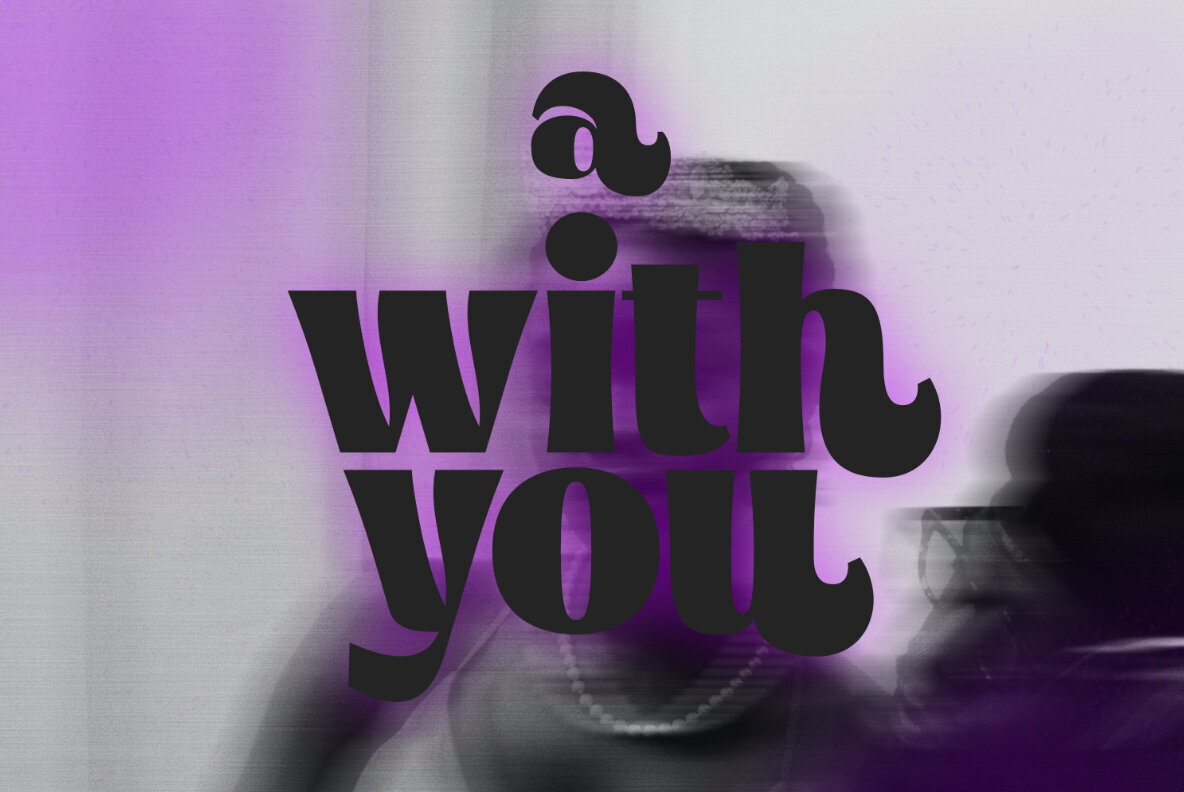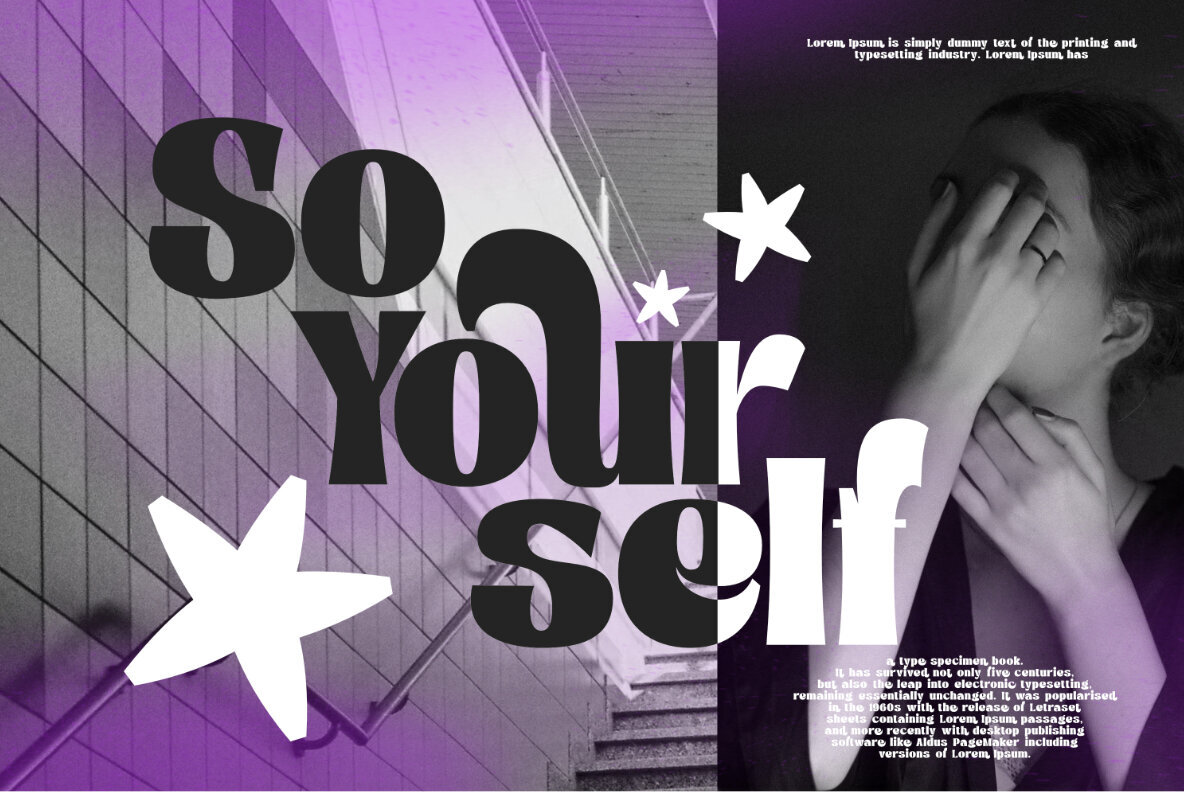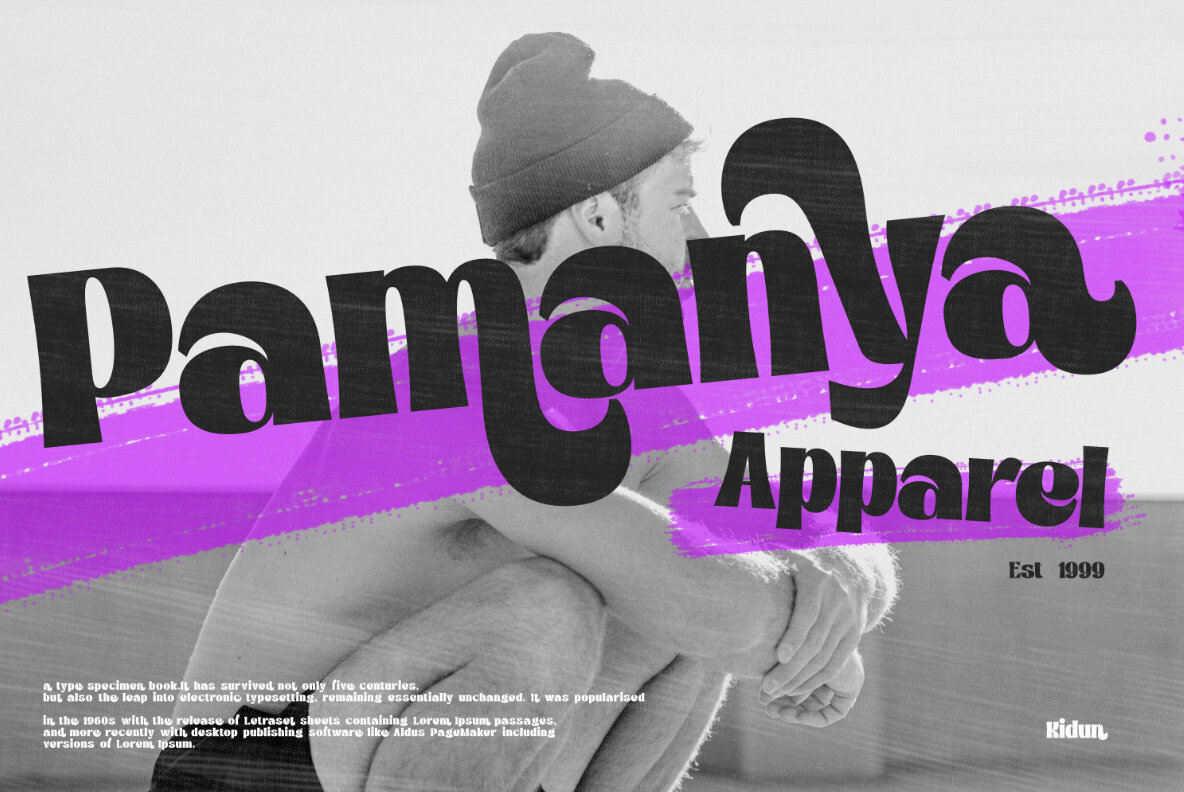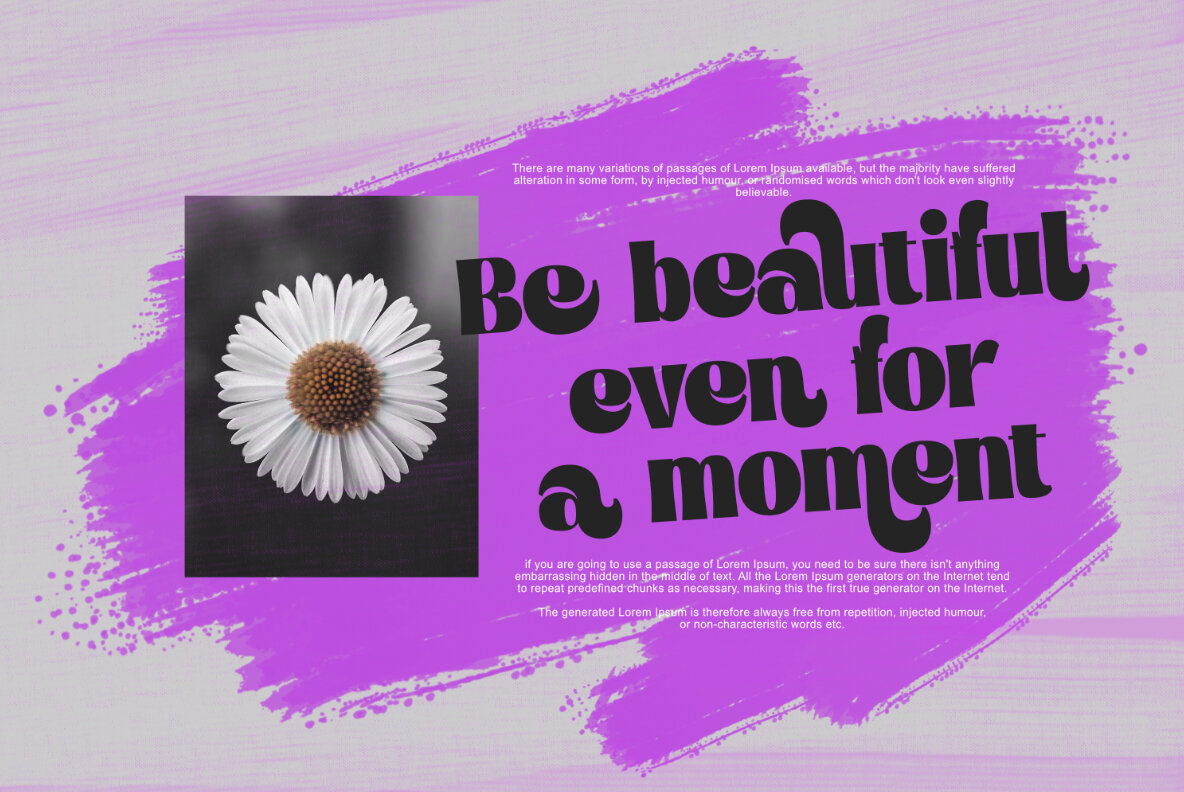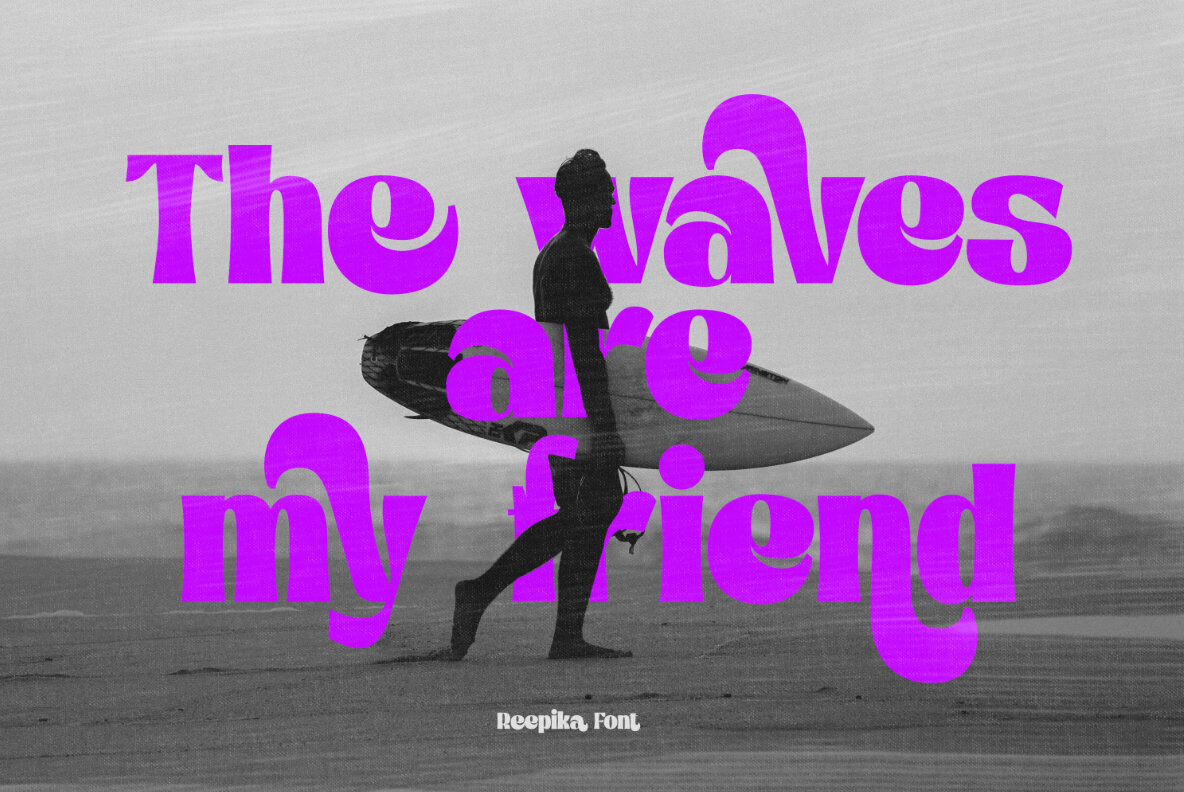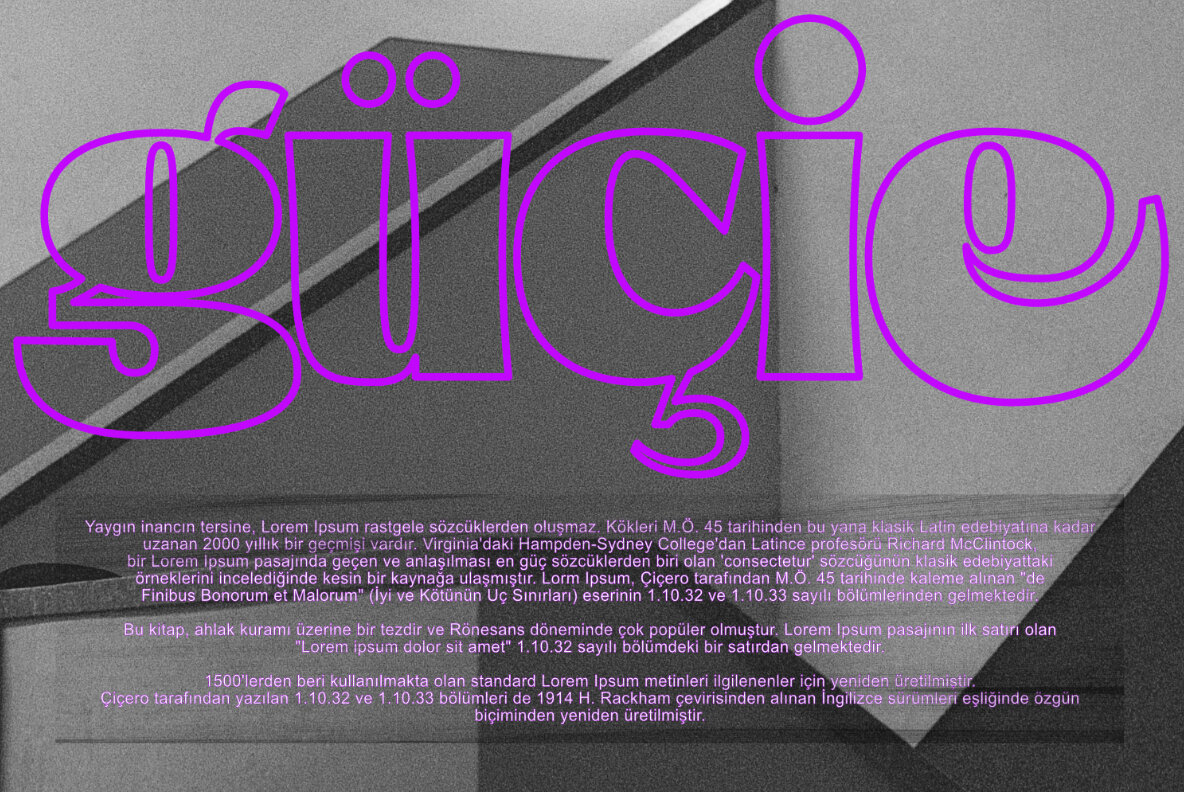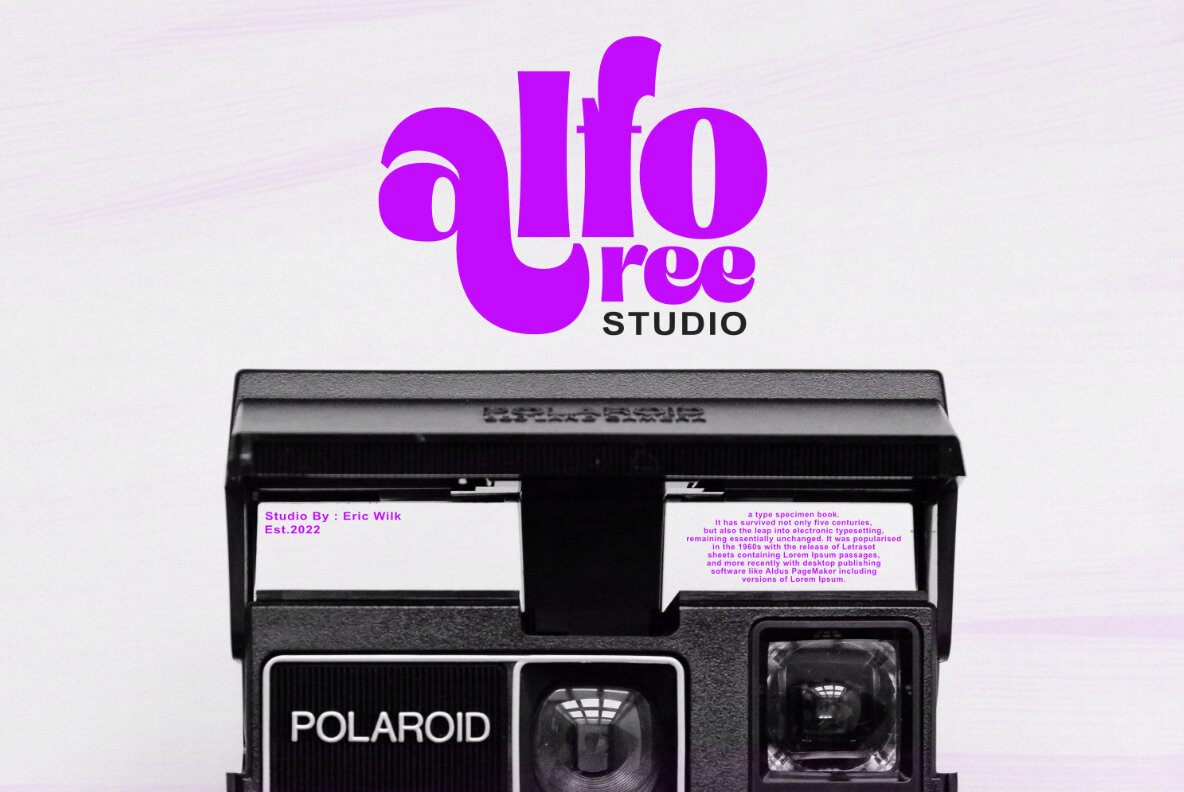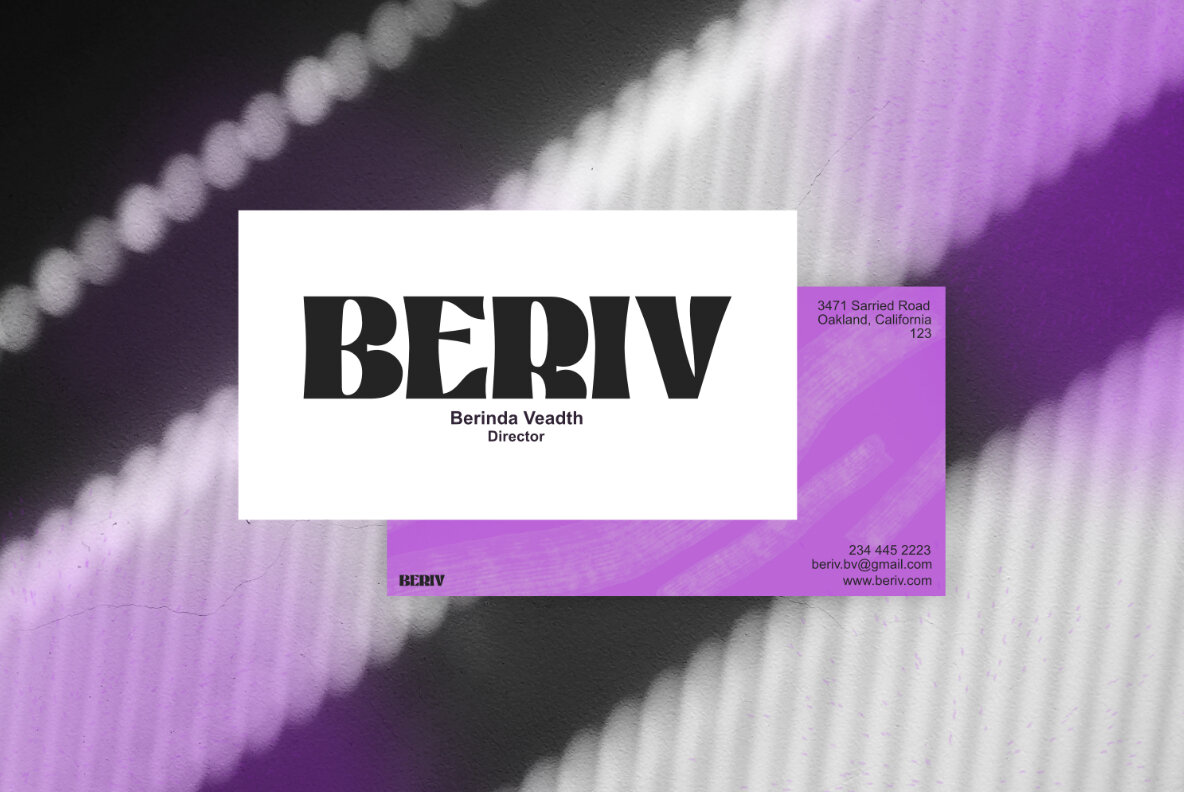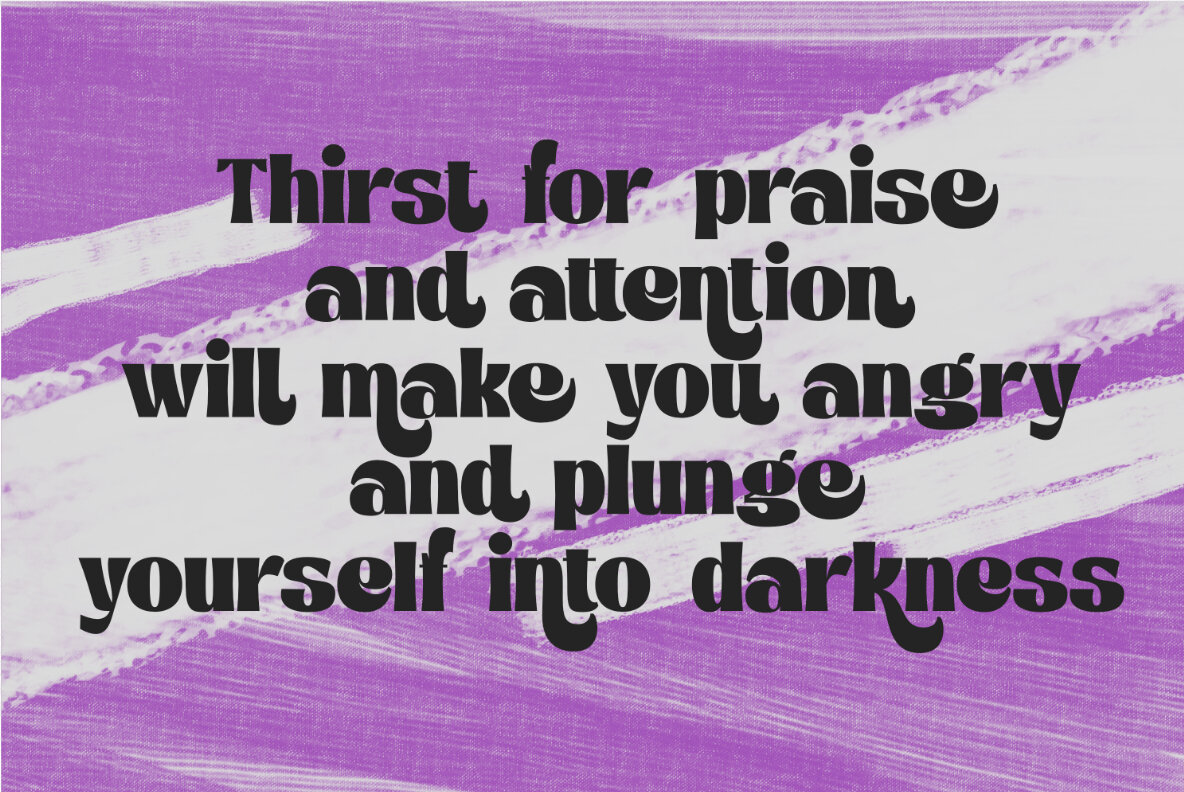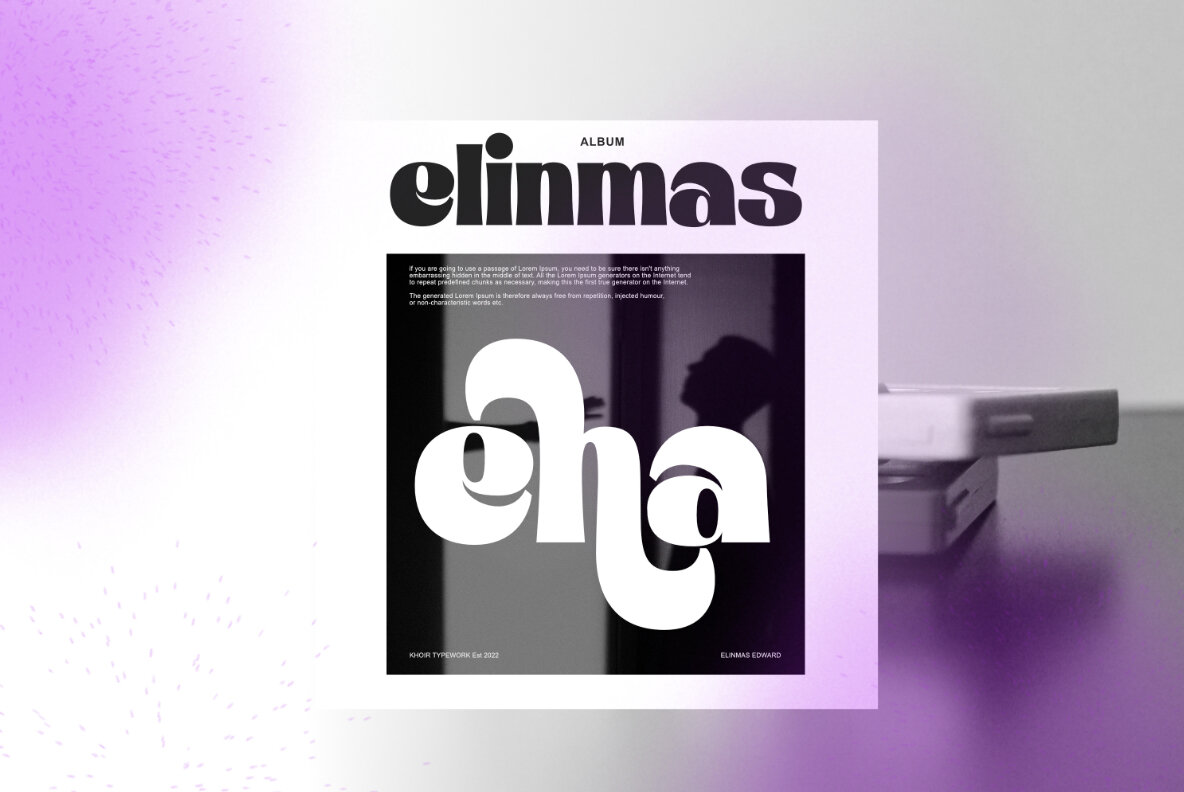
Reepika Font
Reepika
Reepika is a thick serif font inspired by 70-90s design styles, A mix of groovy styles combined with streetwear styles but still looks not stiff. Perfect fit for logo design. posters, branding, album covers, fashion, apparel, merchandise, and more.